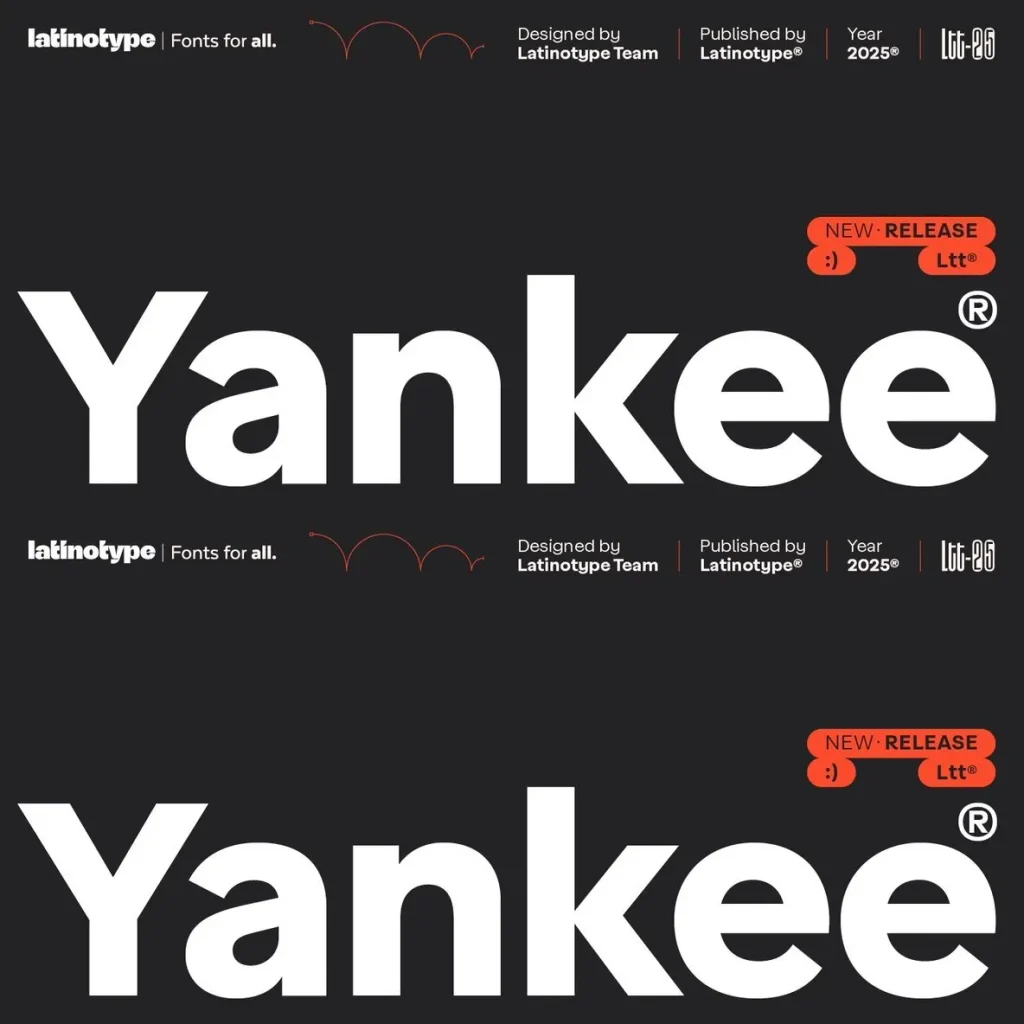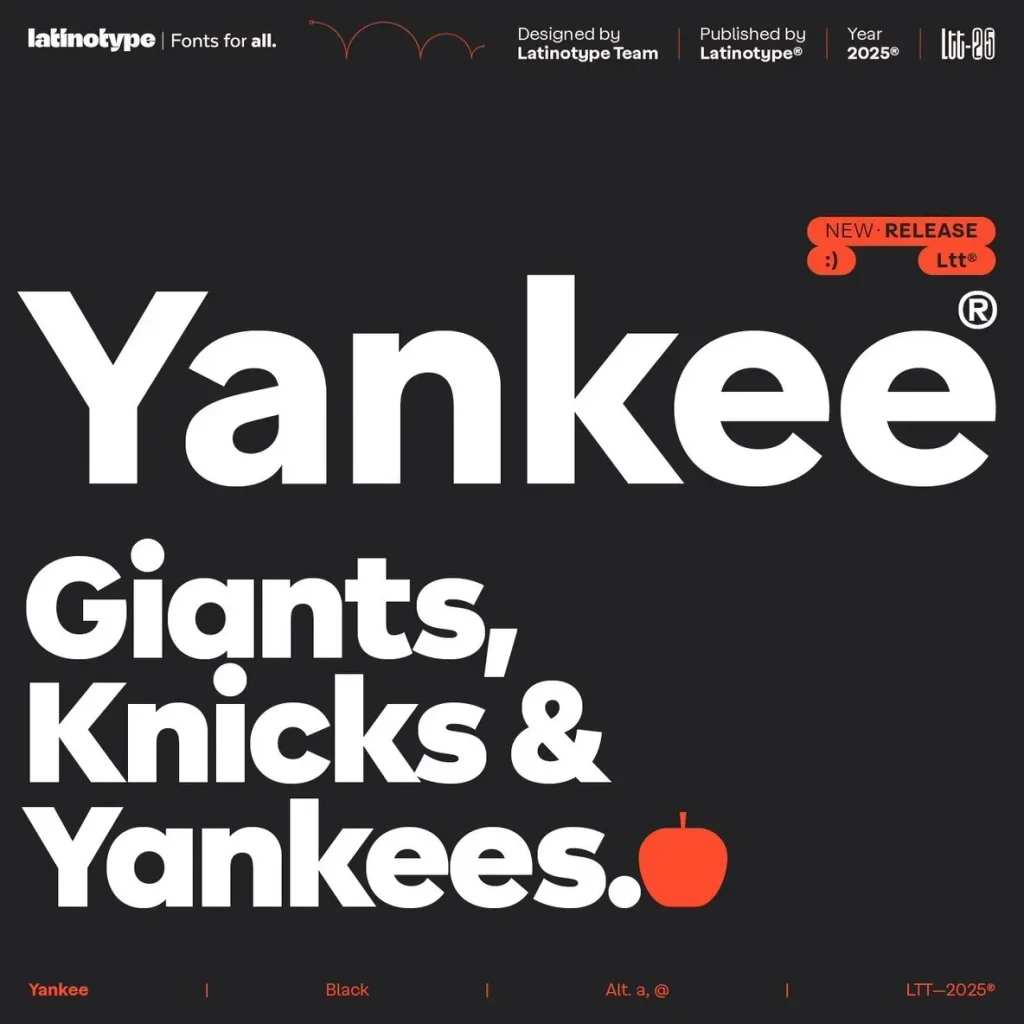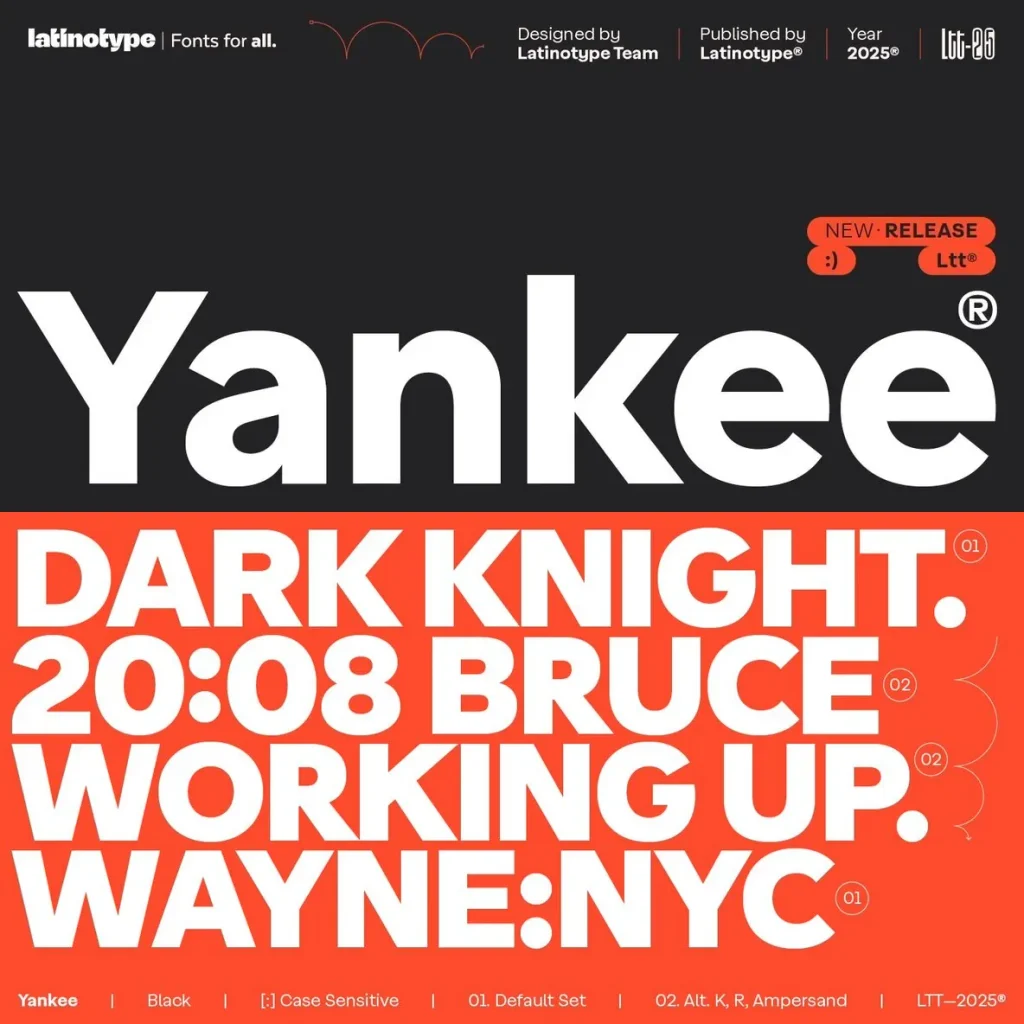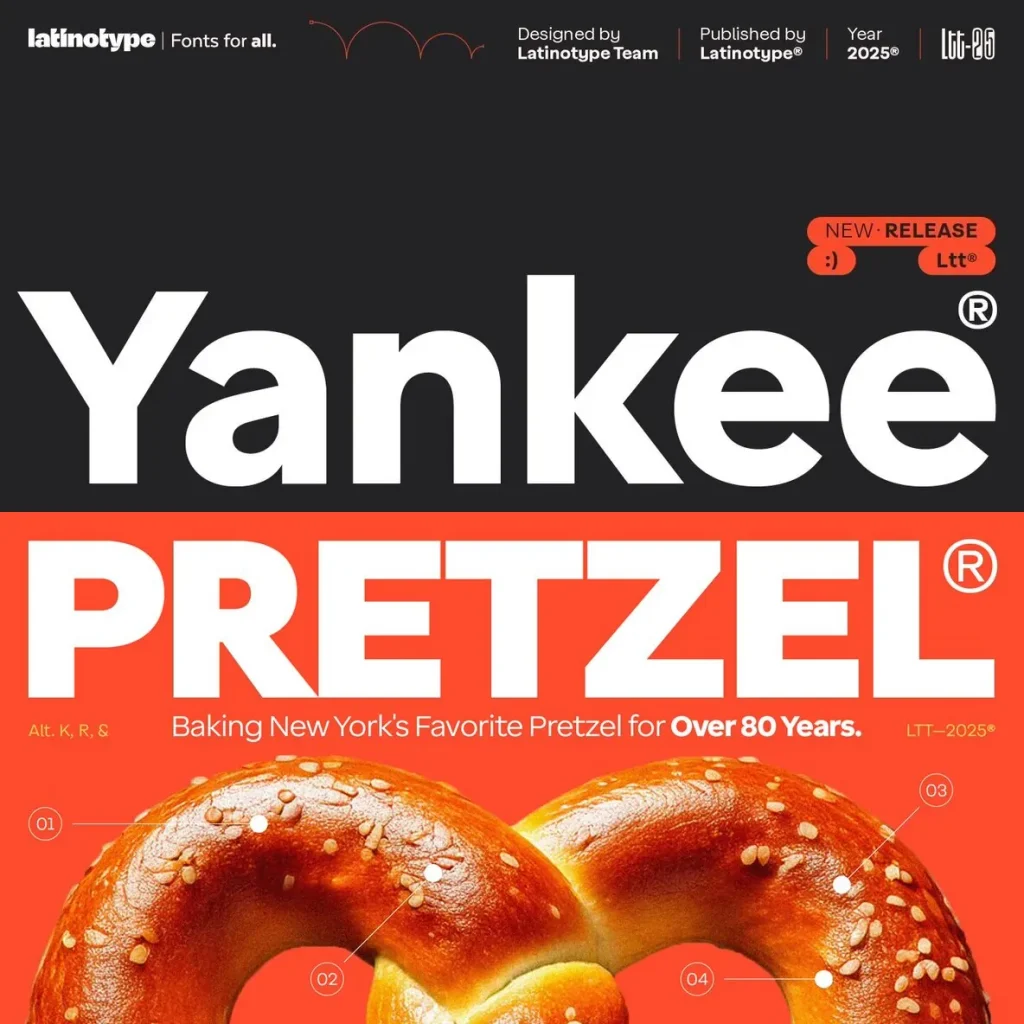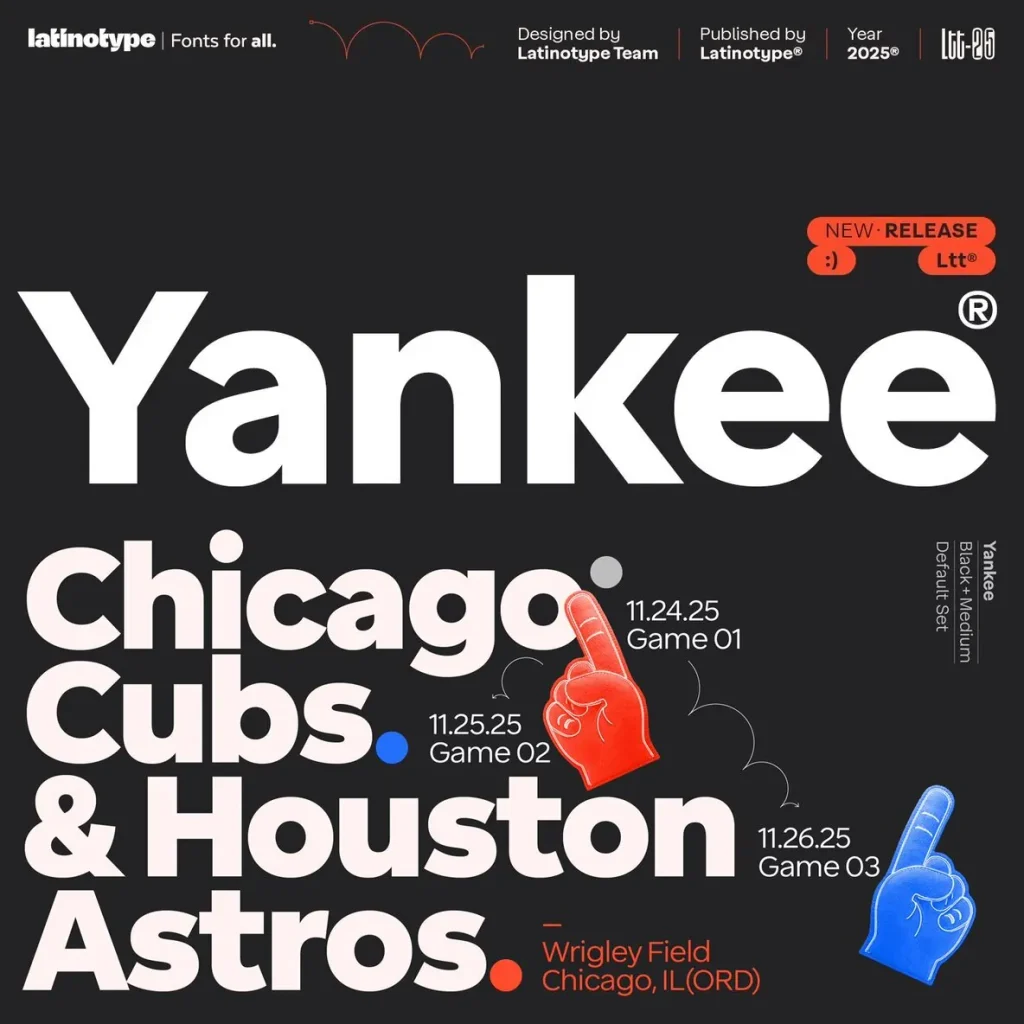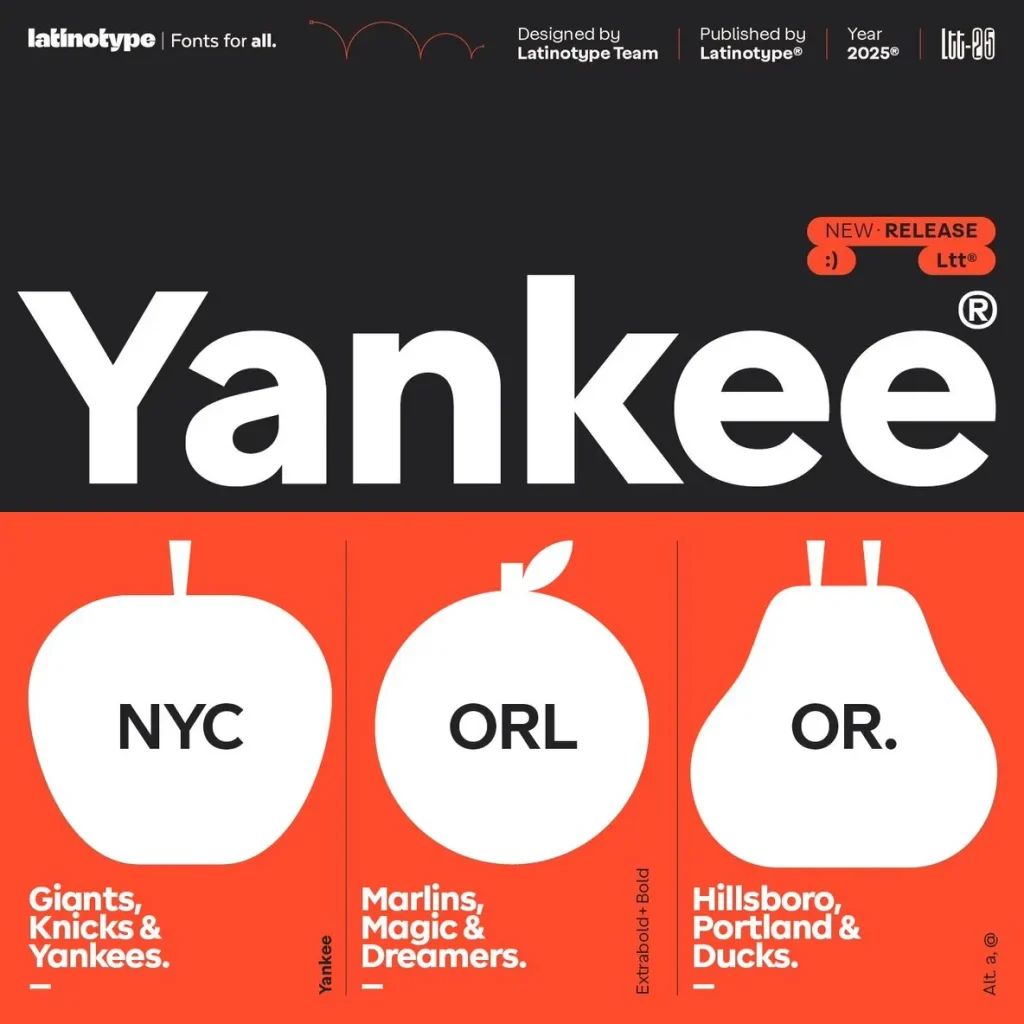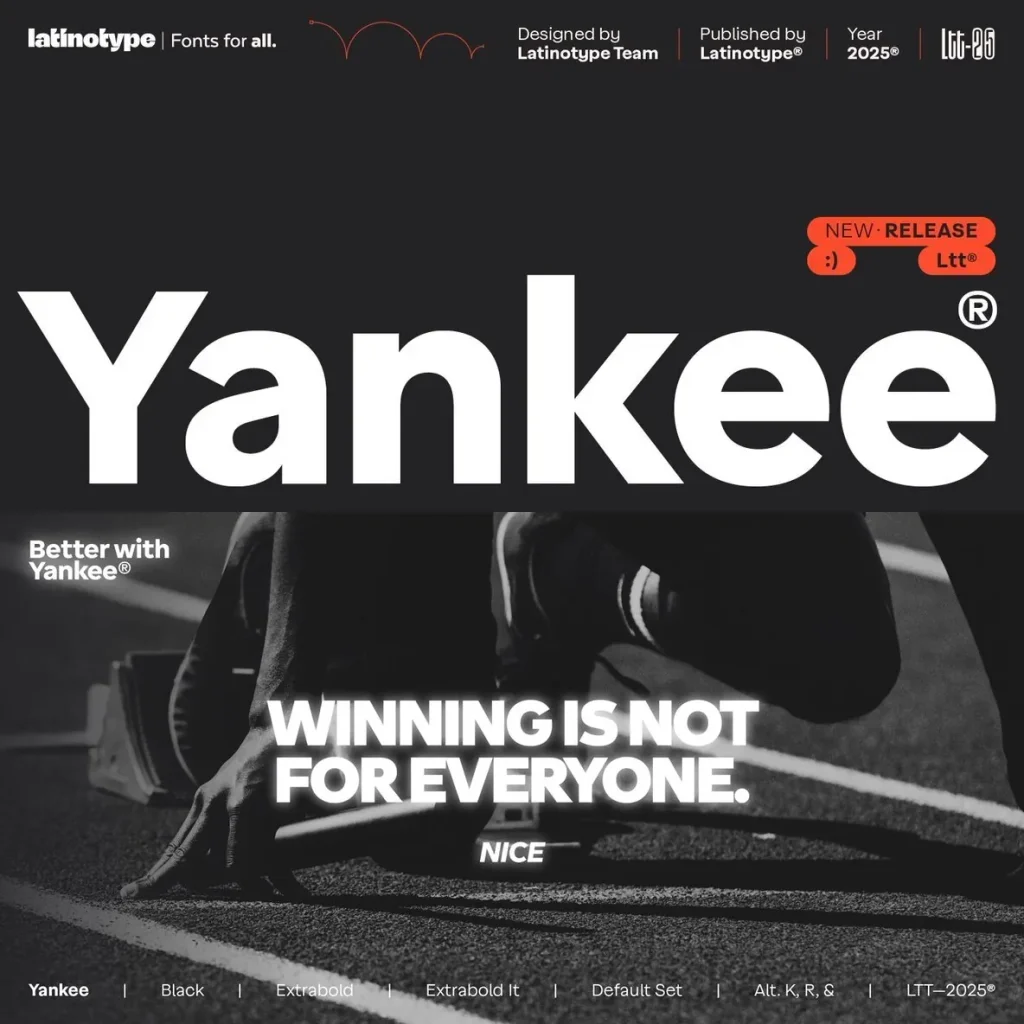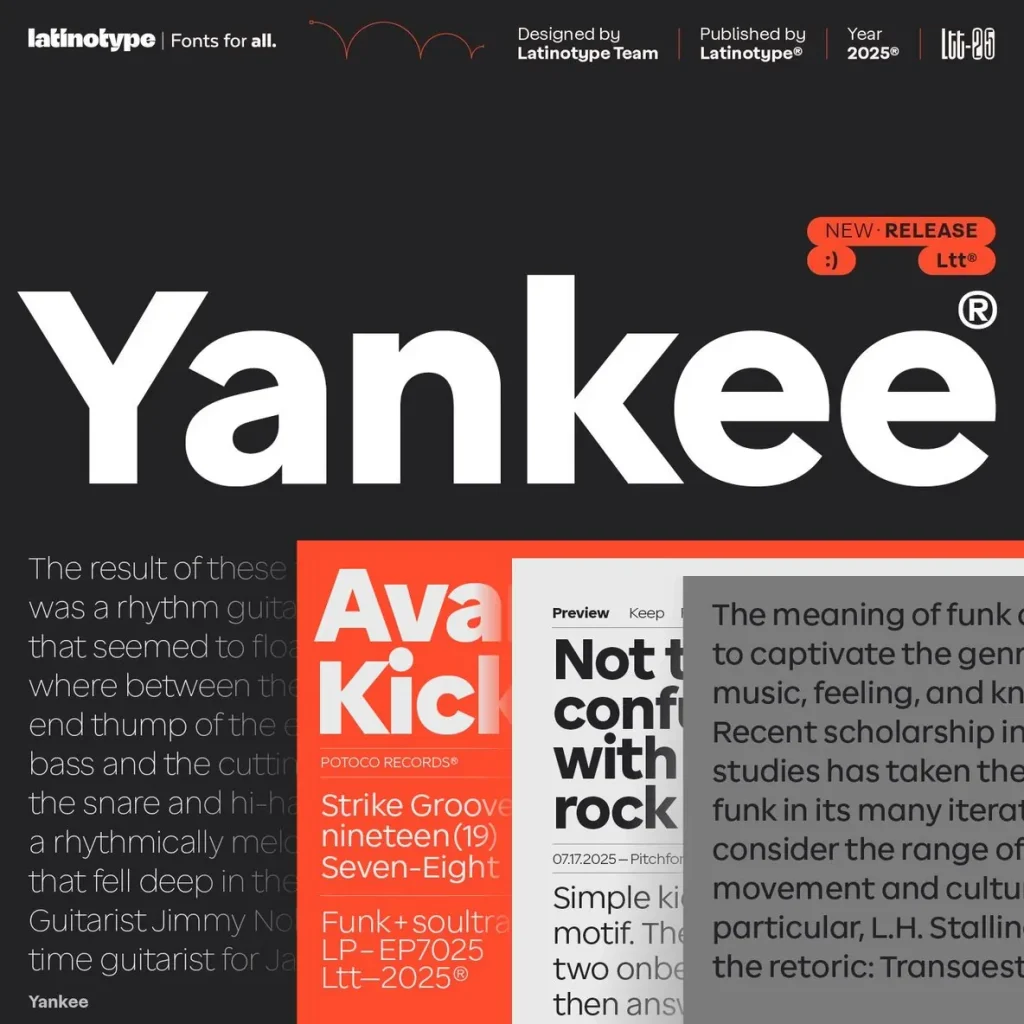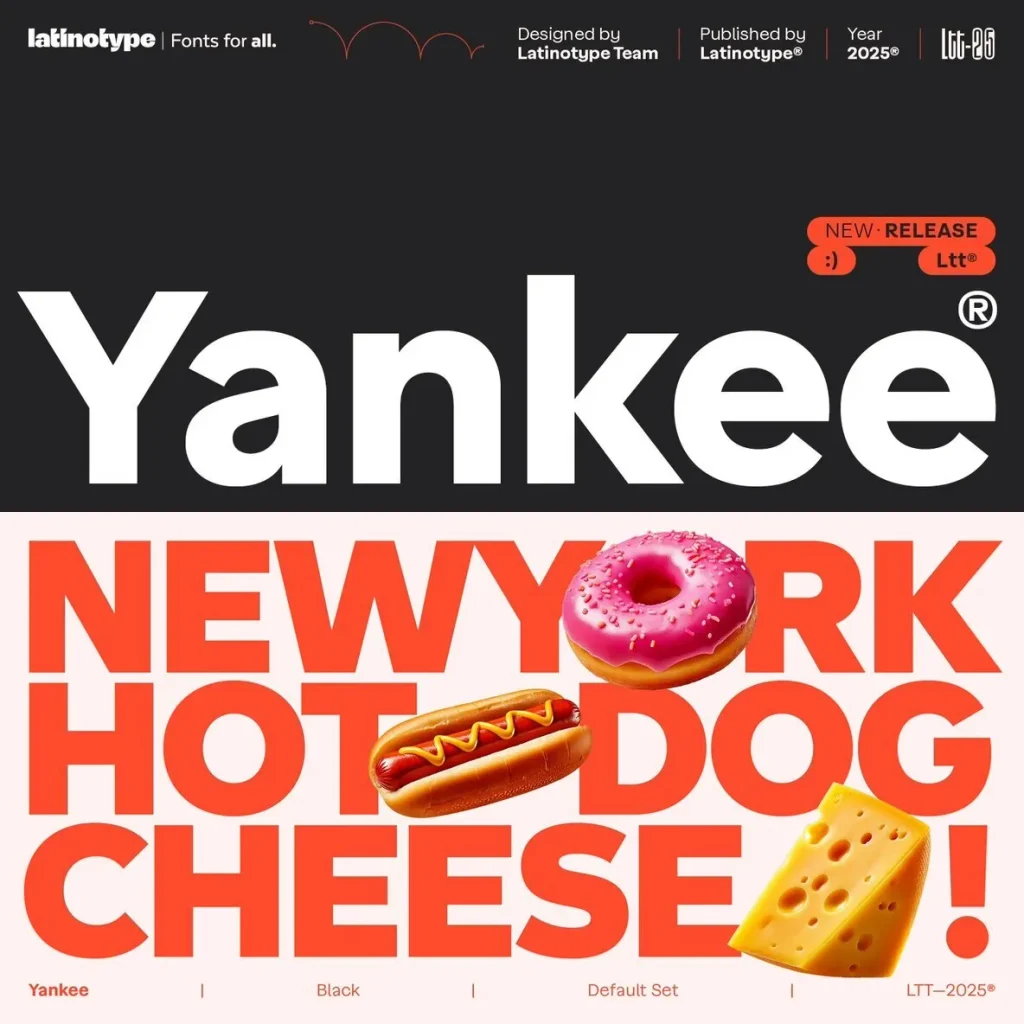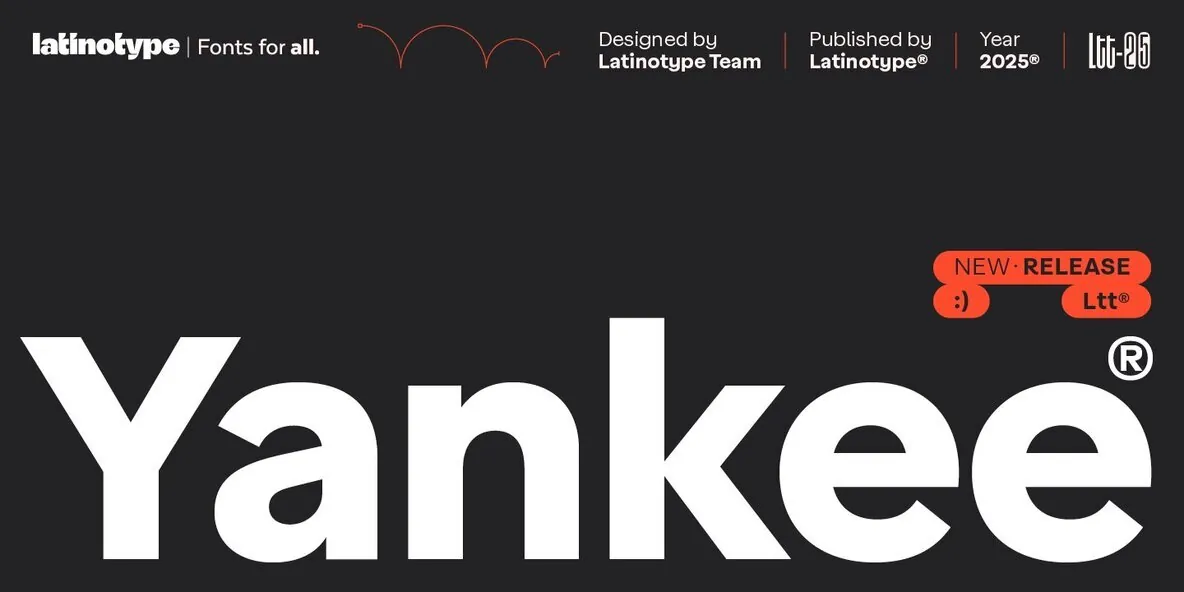
Yankee Font
Yankee Typeface: Modern Precision with American Heritage
Yankee stands out as a geometric typeface inspired by American tradition and urban energy. Each letterform is carefully shaped for clarity and visual impact, making this font an excellent choice for projects seeking a blend of classic roots and modern aesthetics. The sharp lines and thought-out details recall city skylines, classic collegiate signage, and the innovative spirit of contemporary design studios.
Perfect for branding, editorial work, or posters, Yankee offers versatility and sophistication in any context. Its balanced structure ensures strong legibility while adding a distinct touch to display titles, headlines, and visual identities.
Key Features
Geometric style for clean, memorable design
Suitable for both modern and classic applications
Refined details enhance professional layouts
Consistent letterforms for cohesive visual storytelling